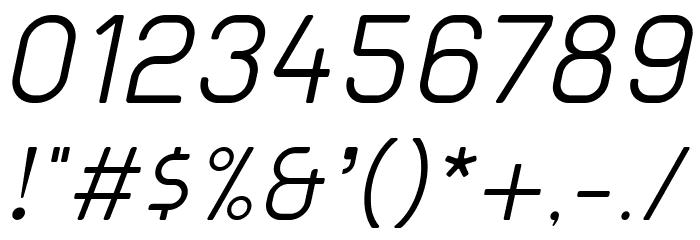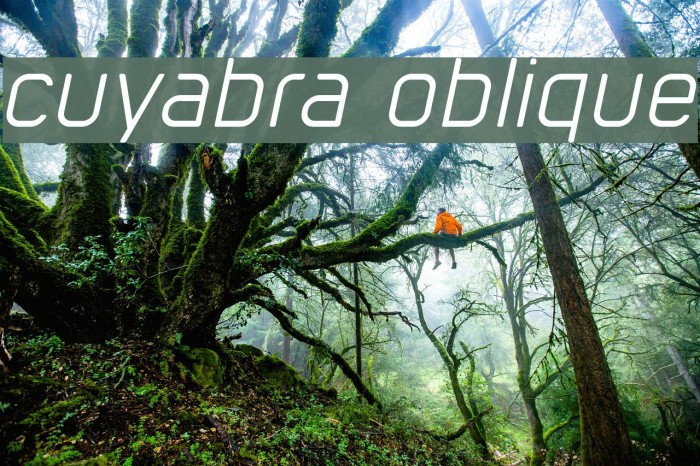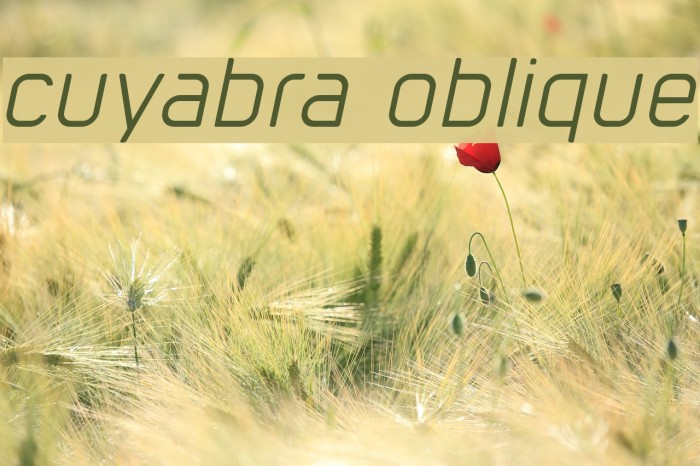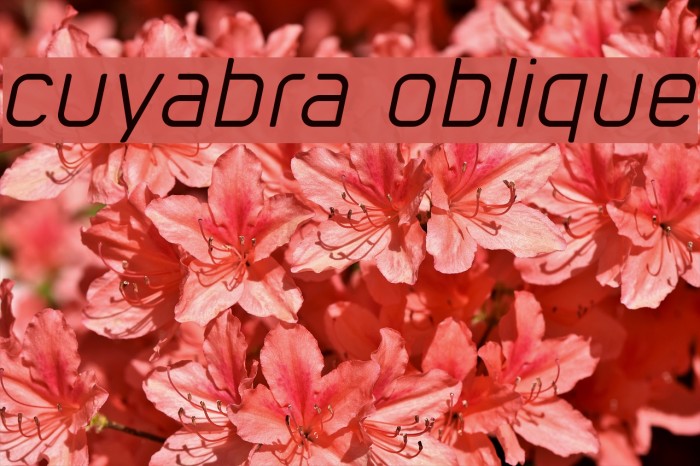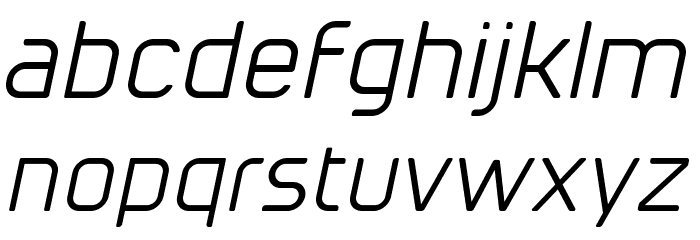
cuyabra oblique Font
This font features a sleek, modern design with a distinct oblique style, giving it a dynamic and forward-leaning appearance. The characters are uniformly slanted, creating a sense of motion and energy. The strokes are clean and consistent, with a medium weight that balances readability with style. The font maintains a uniform width across all characters, providing a cohesive look. Its geometric shapes and rounded edges contribute to a contemporary aesthetic, making it suitable for a variety of design applications. The character spacing is normal, ensuring legibility while maintaining its stylish appearance. This font's unique style makes it ideal for projects that require a modern and energetic feel.
A sleek, modern oblique font with medium weight and geometric shapes.
• Proposed Projects: Ideal for branding, advertising, digital media, and modern editorial design.
• Use Case: Headlines, Logos, Digital Media